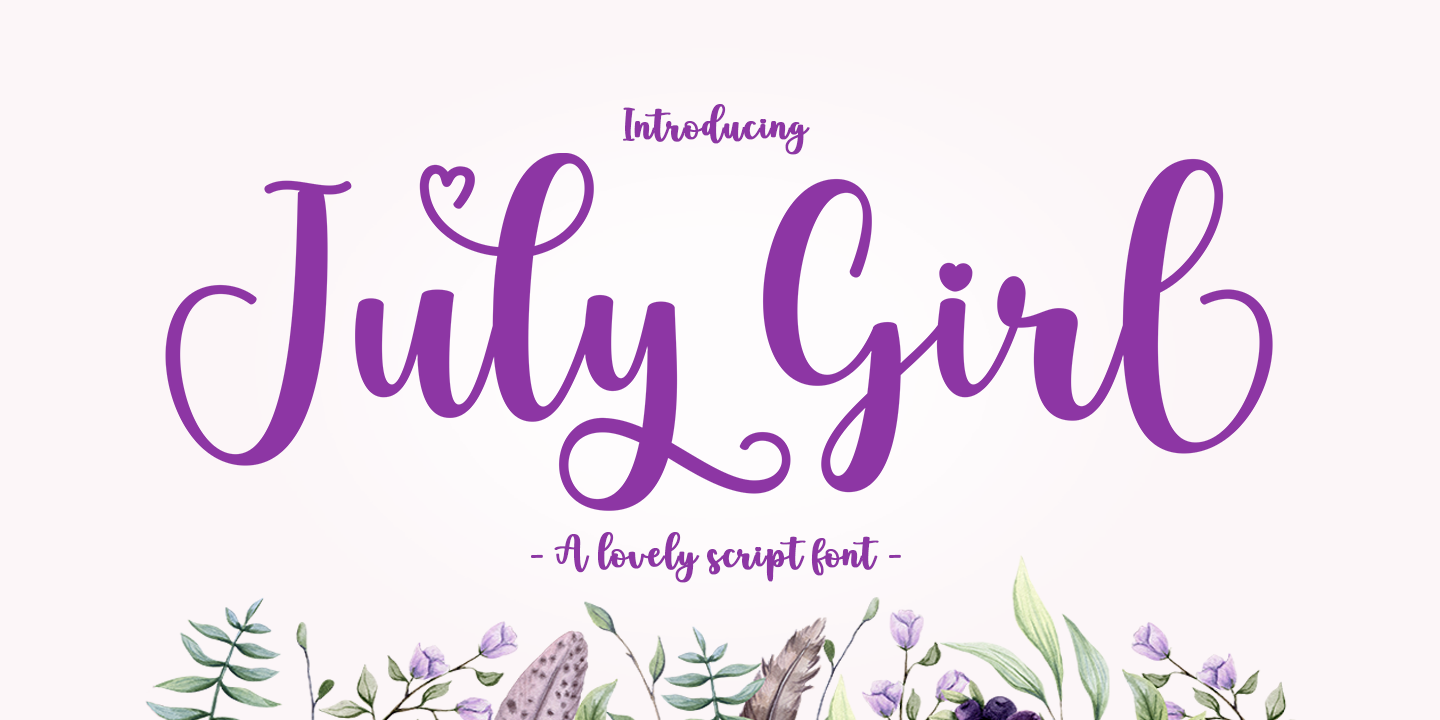
July Girl Font is a charming and versatile typeface, perfect for designs that evoke a sense of carefree joy, youthful spirit, or a handmade touch. Imagine it gracing the branding for a boutique clothing line, adding a cheerful and personal feel to social media graphics, or providing a warm, inviting look to invitations for a summer gathering. Its often playful, slightly irregular forms, and a hint of hand-drawn character make it ideal for creative digital content, artisanal product packaging, and any print materials where a sense of whimsy and warmth is desired. From a quirky blog header to lively event posters, this font infuses designs with personality and a memorable, delightful quality.
What makes July Girl Font so exciting is its ability to convey a sense of genuine charm and approachable friendliness. It often features letterforms that have a gentle bounce, a subtle irregularity, or a distinctly personalized touch, giving it a unique and endearing personality that stands apart from more rigid typefaces. This isn't a formal font; its power lies in its ability to evoke smiles, warmth, and a touch of playful imagination, much like a carefree summer day. It can make any text it's applied to feel more intimate and engaging, instantly drawing in the viewer with its amiable aesthetic. This distinct character is what truly sets July Girl Font apart.
The July Girl Font family typically focuses on delivering its unique, expressive style with charm and consistency. While it might not have an extensive range of traditional weights like a versatile sans-serif, you can generally expect to find a finely crafted Regular weight, often accompanied by bold versions or stylistic alternatives that further enhance its distinctive aesthetic. These variations are designed to provide flexibility within its specific style, allowing designers to create compelling headlines, subheadings, and decorative elements that maintain the font's endearing and charming appeal across different applications.